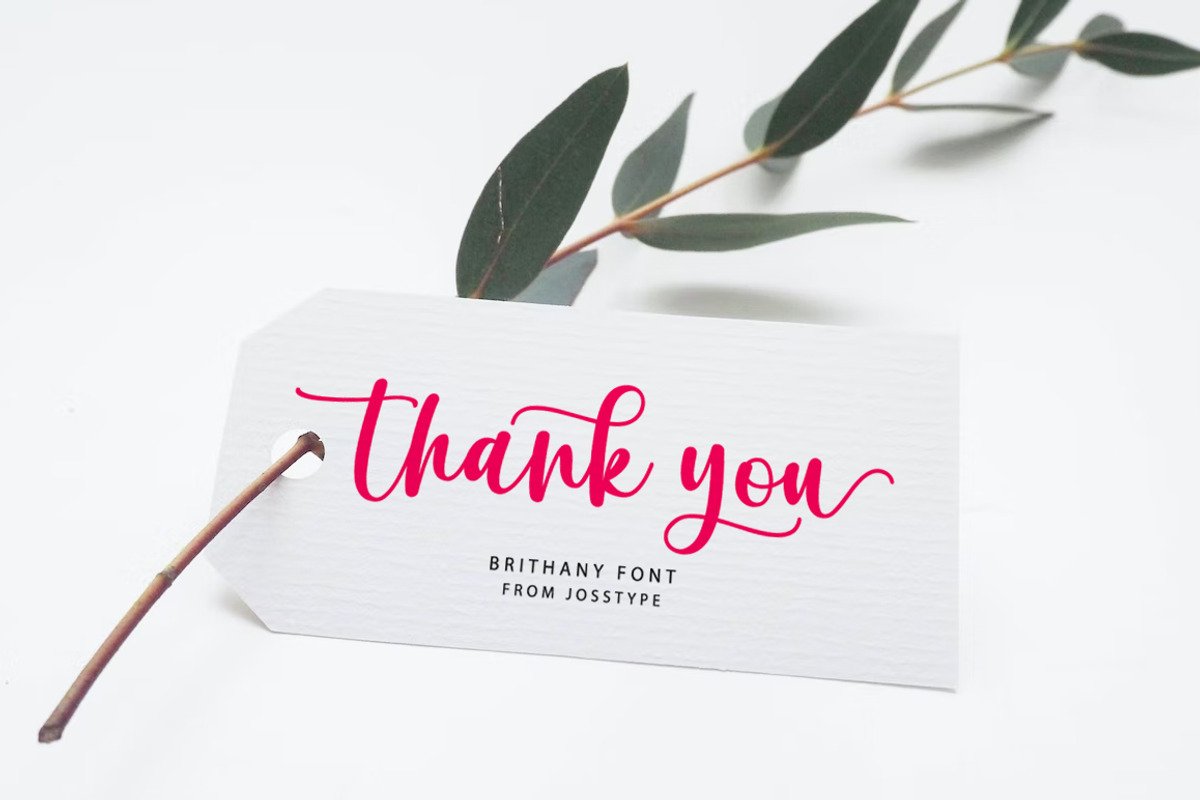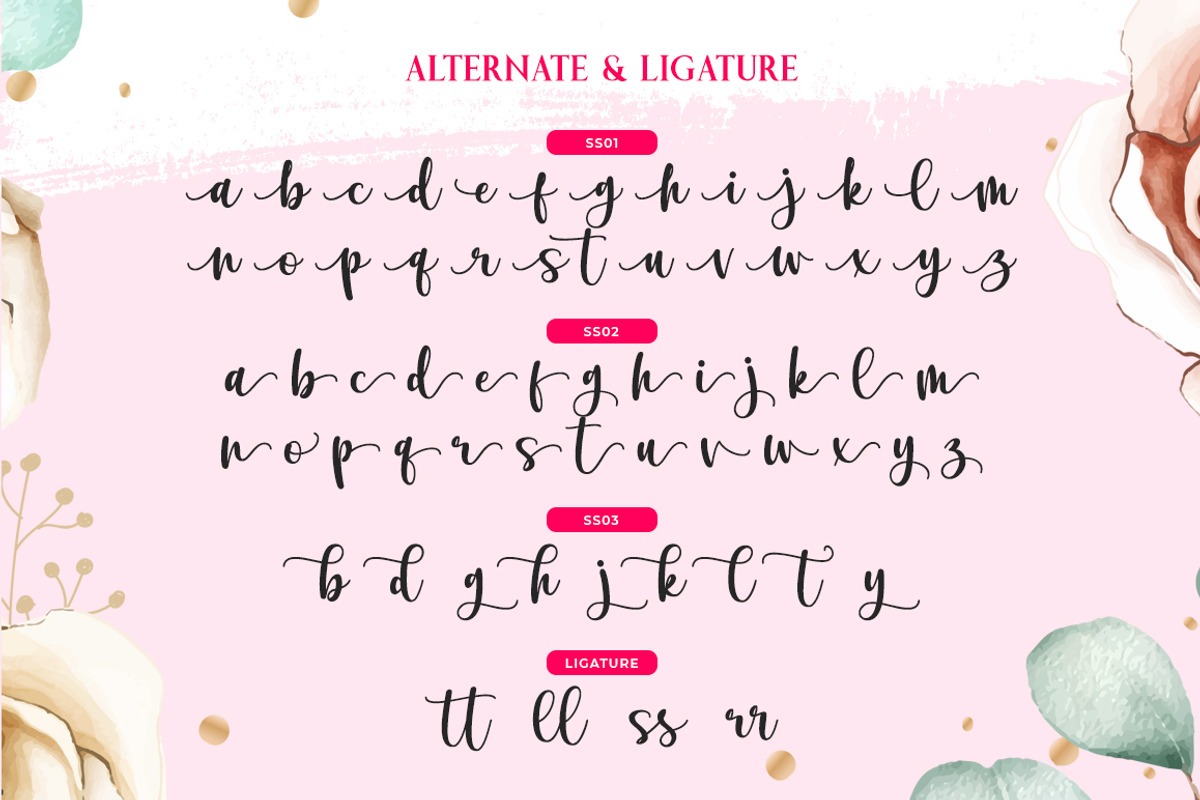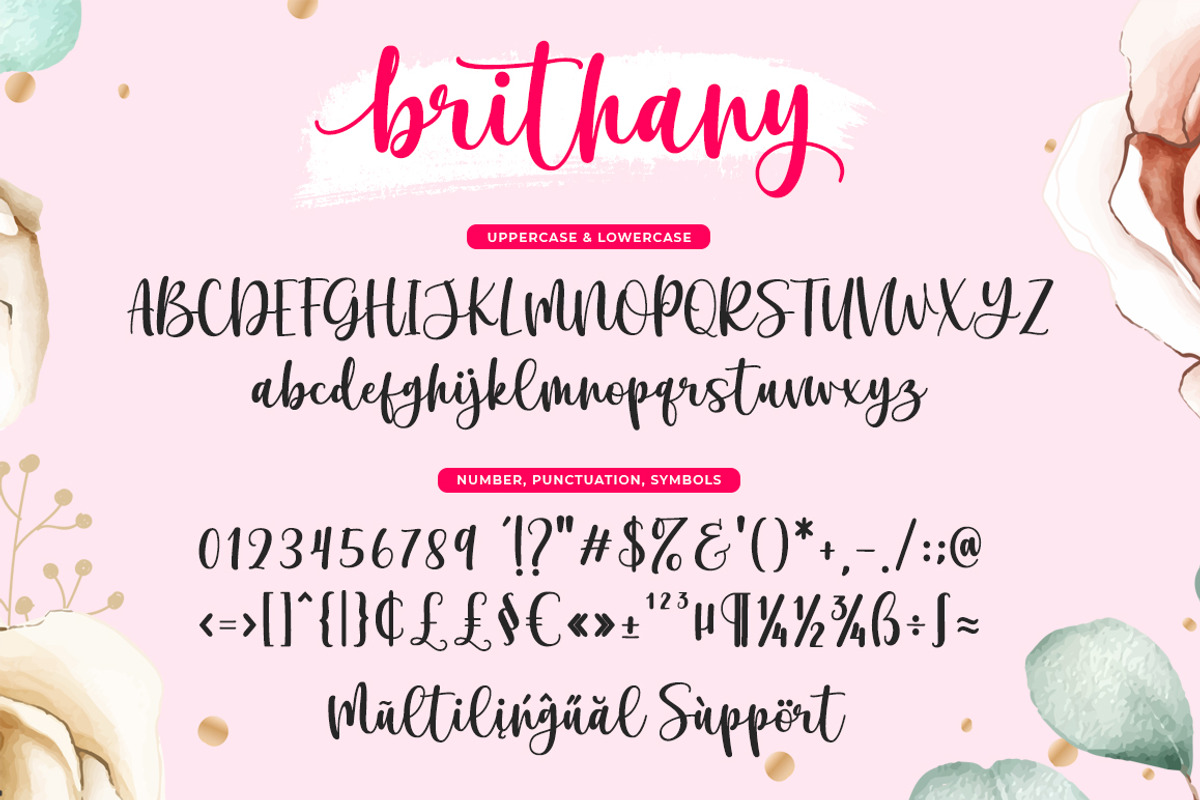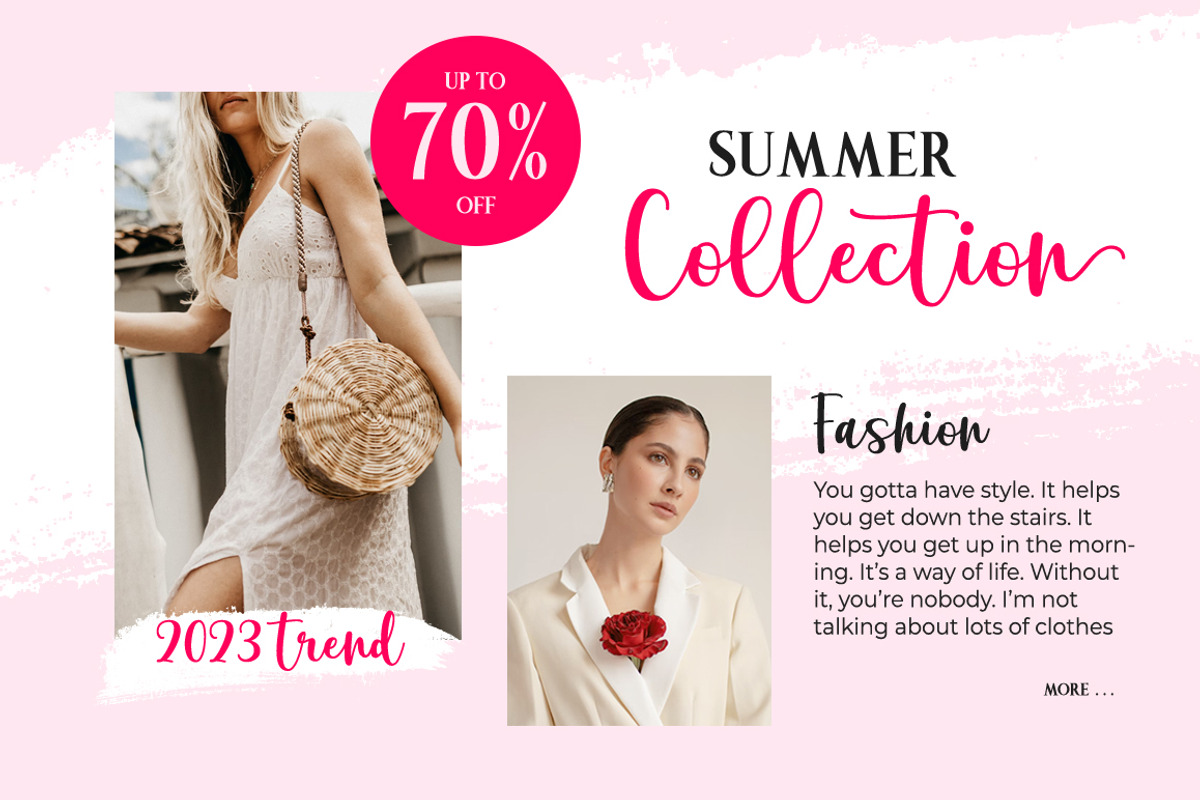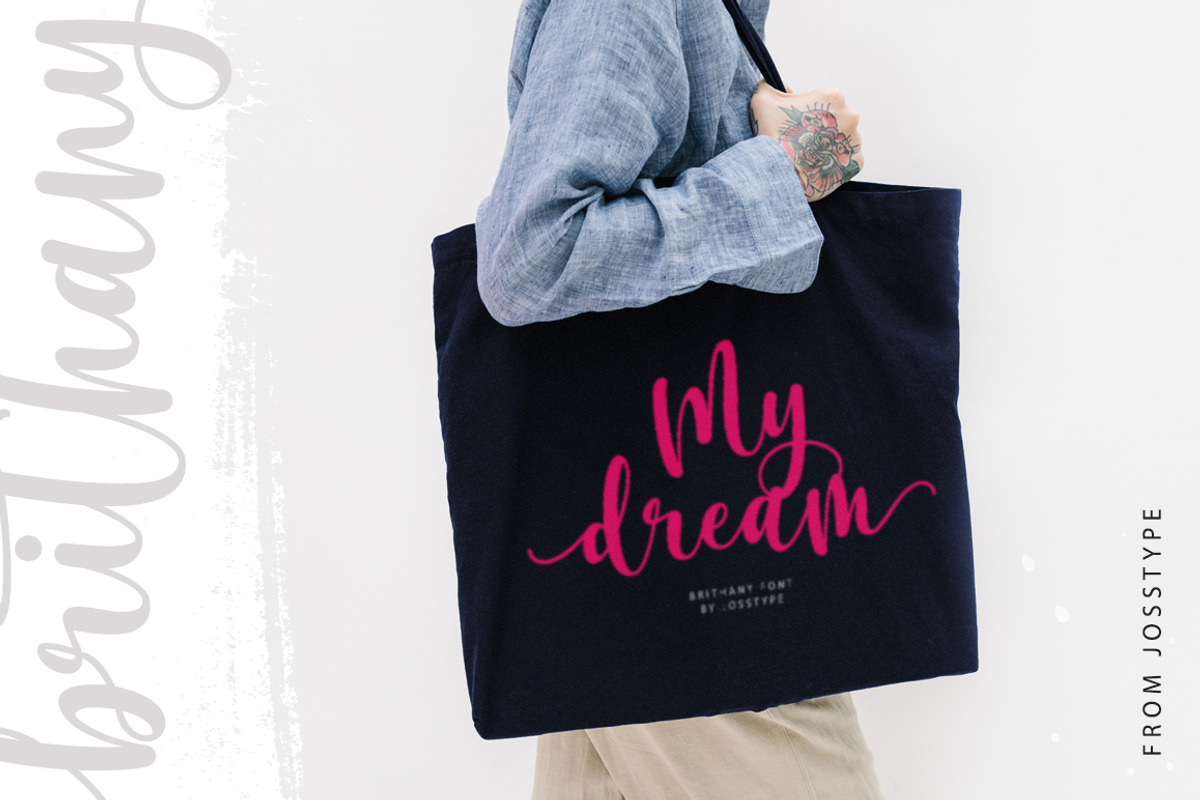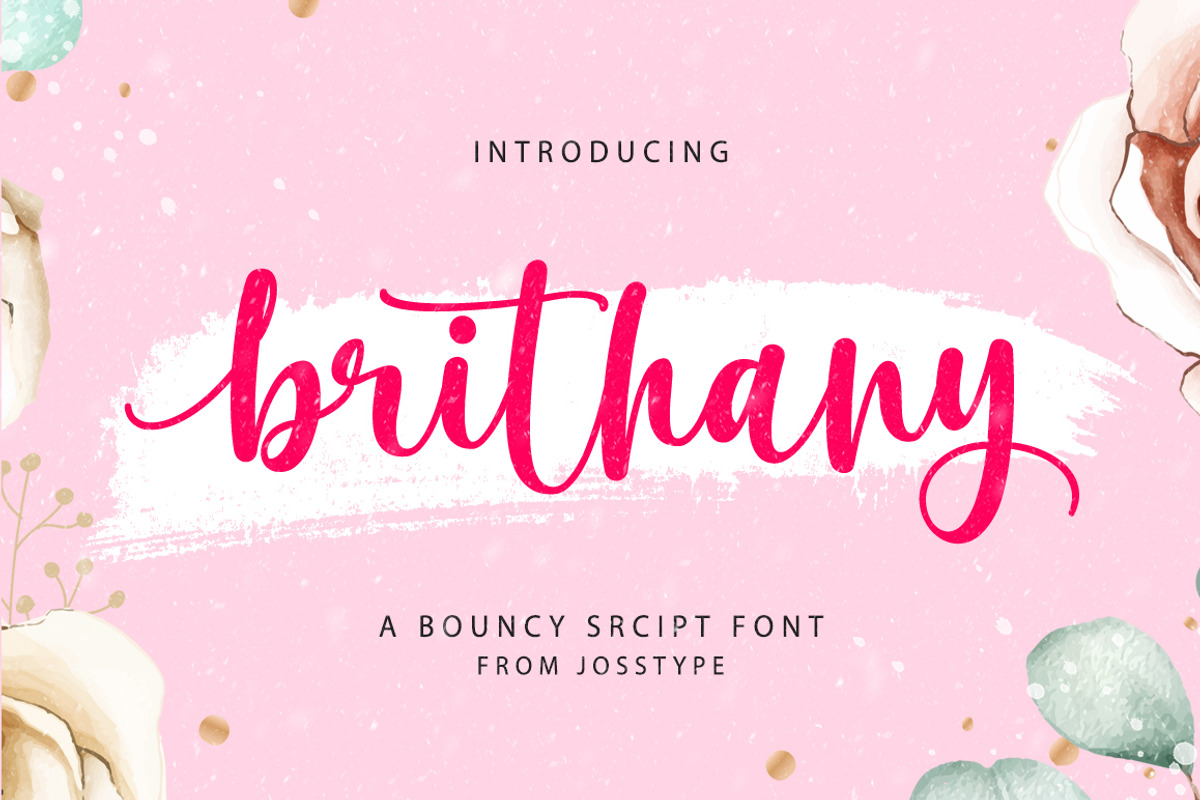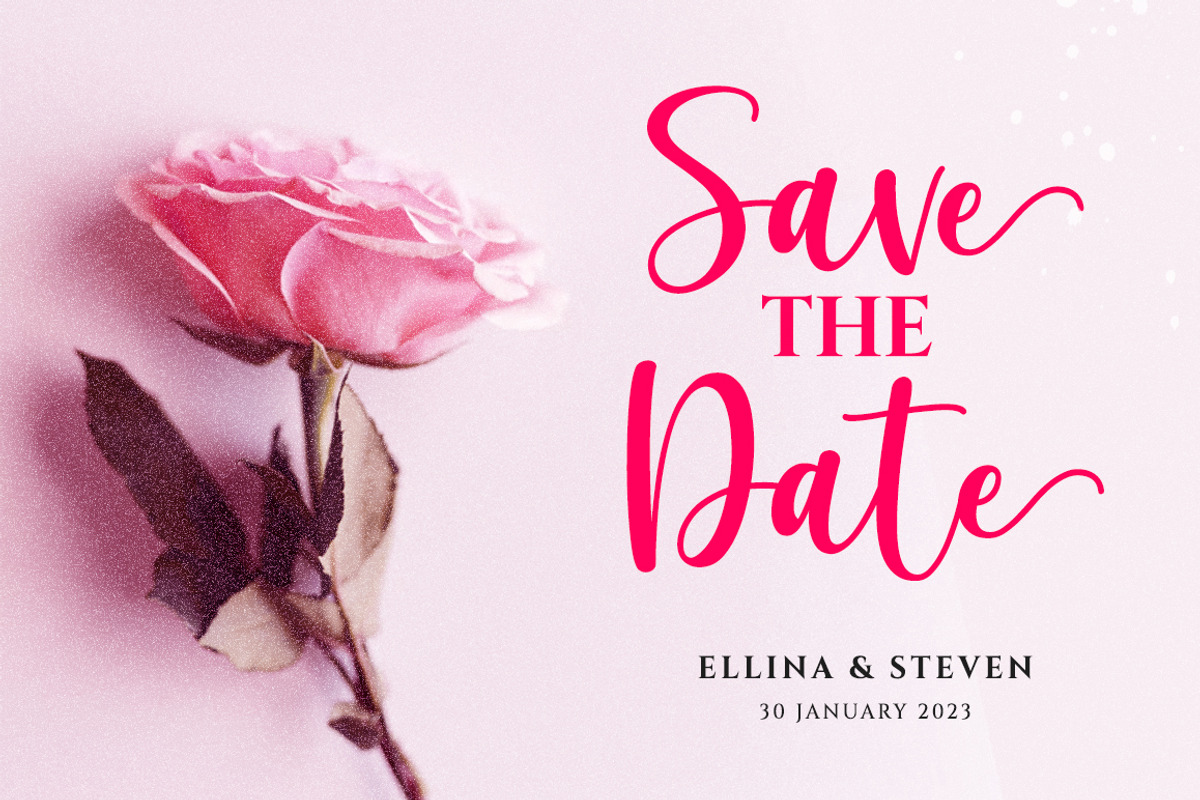
Brithany script
Brithany Script is Hand Lettered Calligraphy Font with beautiful waves and natural flow. has a unique letter style, with natural handdrawn, and has a softer and smoother character subtly connect all the characters. They have a simple elegant swashes in separate letters, you can use graphic design software to access the alternate letter.
Brithany Script 427+ glyphs . including initial and terminal letters, alternates, swashes, ligatures and multiple language support.